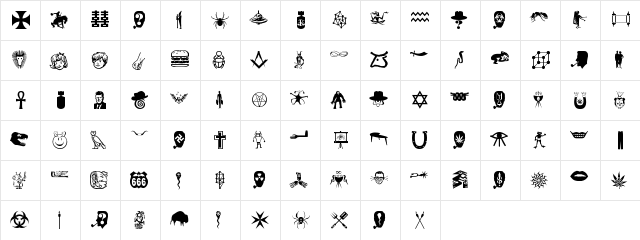
BOBCO 9 Regular Font Preview
BOBCO 9 Regular
Design Context for BOBCO 9 Typeface
BOBCO 9 is a composed and adaptable typeface that performs quietly and consistently across a wide range of design contexts.